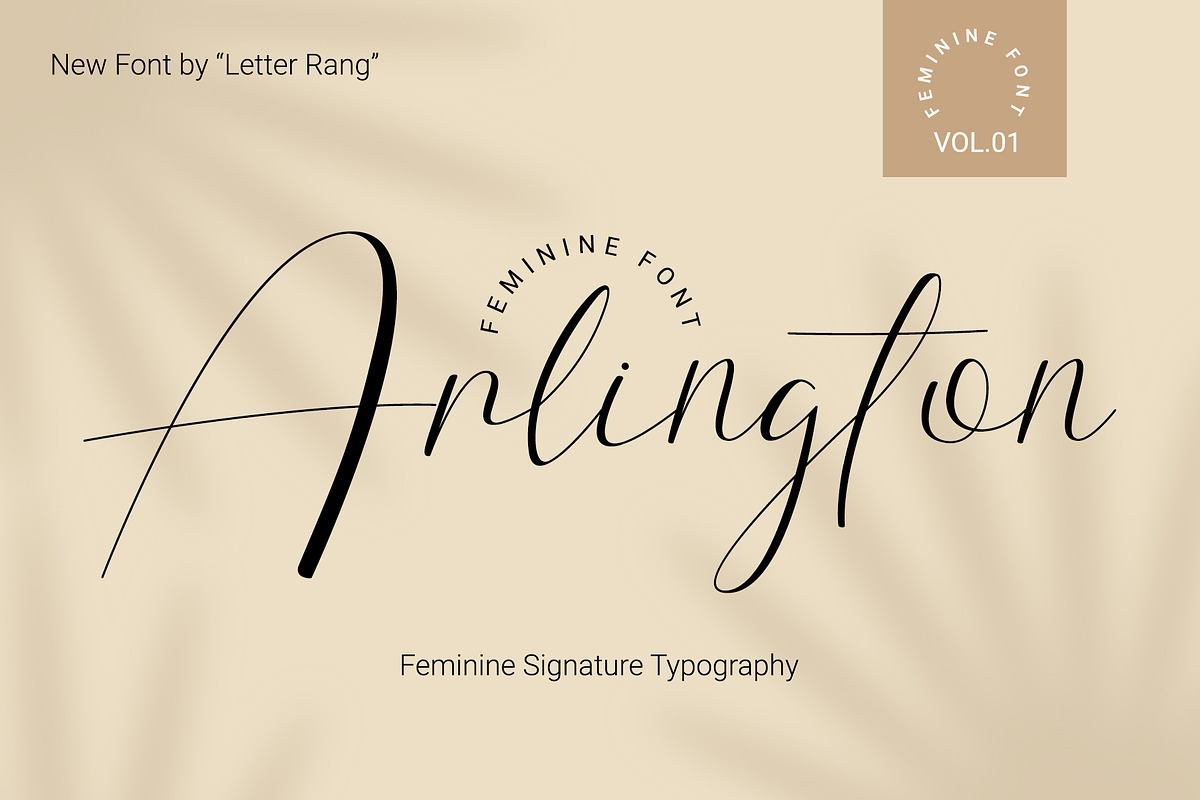
Arlington | Feminine Font Free Download
Arlington | Feminine Font Free Download is an elegant and sophisticated script typeface designed to bring grace and femininity to your designs. Perfect for wedding invitations, feminine branding, beauty product packaging, and social media graphics, this font exudes a timeless and chic vibe.
With its smooth curves and delicate letterforms, Arlington | Feminine Font Free Download adds a personal, luxurious touch to any project. Whether you're creating a sophisticated brand identity, crafting an elegant invitation, or designing a polished logo, Arlington brings both elegance and readability. Try it out in your next design to see how it elevates your typography—then upgrade to a commercial license when you're ready to take your project live.